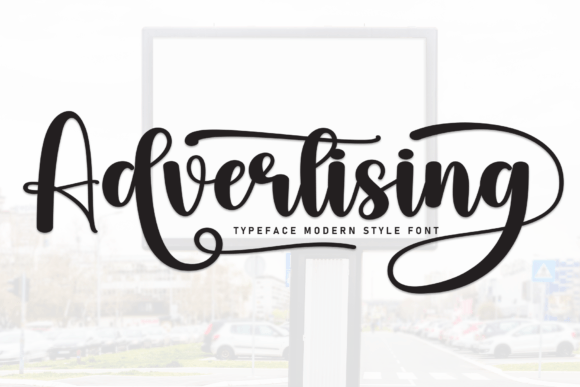
Have you ever stared at a blank sheet of paper, trying to come up with the perfect idea for a wedding invitation or a birthday card? The blank space can be intimidating, but sometimes all it takes is a spark of creativity to get those ideas flowing. For designers, finding the right font can be the key to unlocking that perfect design.
That’s where the Advertising Font comes in – a sweet and friendly handwritten display font that’s sure to add a fun touch to any design. This versatile font is perfect for writing invitations, cards, or any other design that needs a playful vibe. And for designers, it’s a valuable asset to have in their toolkit, offering endless possibilities for creative expression.
Key Features of Advertising Font
- Unique Characteristics: The font features bold, eye-catching letterforms and a high-contrast design, making it perfect for grabbing attention in crowded environments.
- Legibility: Despite its bold appearance, Advertising Font is designed to be highly legible, even at small sizes, ensuring that your message is conveyed clearly.
Designer Review: Advertising Font
Overall, I think Advertising Font is a solid choice for any project that requires a bold and eye-catching font. Here’s what I like about it: ✨
- Sleek Design: The font has a modern and sleek design that makes it perfect for any advertising or promotional materials.
- High Contrast: The high contrast between the thick and thin lines makes it easy to read, even at small font sizes.
- Legibility: Despite its bold appearance, the font is surprisingly legible and easy to read.
- Limited Character Set: The font only includes uppercase and lowercase letters, numbers, and a few punctuation marks. It’s not ideal for projects that require a wide range of special characters.
- Lack of Italic and Bold Variations: While the font has a bold appearance, it’s not ideal for projects that require italic or bold text.
Overall, I think Advertising Font is a great choice for any project that requires a bold and eye-catching font. While it has its limitations, it’s a solid choice for any designer looking for a modern and sleek font.
Tips for Getting the Most Out of Advertising Font
Choose a font that complements your brand identity and design style. Use advertising font in conjunction with eye-catching graphics and images to create a visually appealing design. Experiment with different font sizes, colors, and styles to create a unique and effective design. Use advertising font consistently throughout your design to create a cohesive and professional look.
Advertising font is commonly used in marketing materials such as brochures, flyers, and business cards. It’s also used in social media graphics, email marketing campaigns, and website design. Use advertising font to create attention-grabbing headlines, titles, and call-to-actions that drive engagement and conversions.